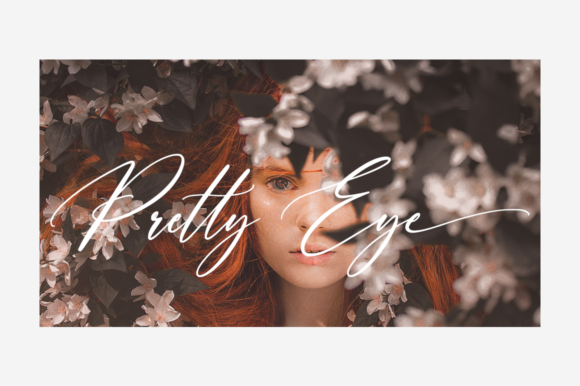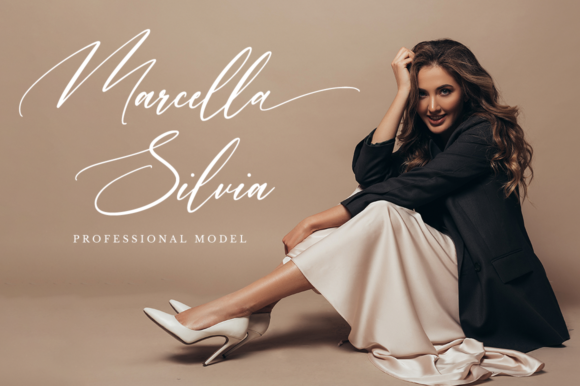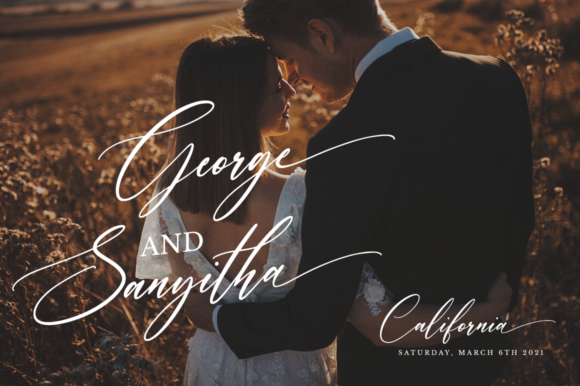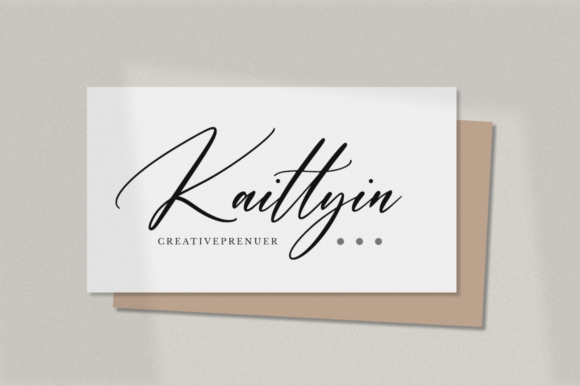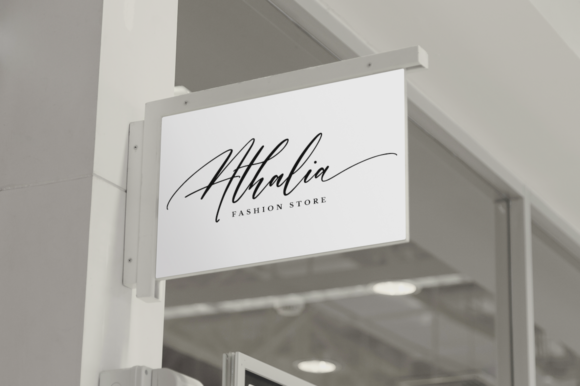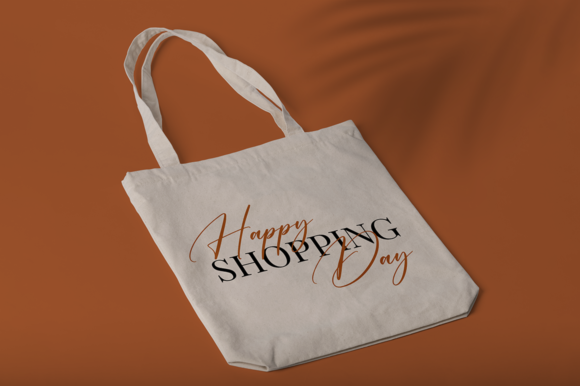
Athallia Font: Elevate Your Designs with a Touch of Luxury
In the world of design, typography plays a crucial role in conveying the tone and aesthetic of a project. For those seeking a font that exudes elegance and sophistication, Athallia Font is an exceptional choice. This beautiful light handwritten font boasts a unique feel and stunning impact, making it perfect for designers and crafters looking to add a luxury spark to their creations.
The Unique Charm of Athallia Font
Athallia Font is a meticulously crafted typeface designed to bring a refreshing and beautiful look to any design project. Its light and airy texture, combined with elegant handwritten strokes, creates a visually appealing effect that captivates audiences. The font’s unique feel is characterized by its subtle variations in line width and delicate connections between letters, giving it a personal and human touch.
Perfect for Luxury Designs
Athallia Font is particularly suited for designs that require a touch of luxury and sophistication. Whether you’re working on branding, packaging, wedding invitations, or any other high-end project, this font is sure to impress. Its elegant appearance and refined texture make it an excellent choice for designers seeking to create a lasting impression.
Key Features of Athallia Font
• Light and Airy Texture: Athallia Font features a delicate texture that adds a touch of elegance to any design.
• Unique Handwritten Strokes: The font’s handwritten strokes bring a personal and human touch to your designs.
• Easy to Read: Despite its elegant appearance, Athallia Font remains highly legible, making it suitable for body text and headings.
• Multilingual Support: The font supports multiple languages, allowing you to use it for a wide range of projects.
Tips for Using Athallia Font
To get the most out of Athallia Font, consider the following tips:
• Pair with Neutral Backgrounds: Allow Athallia Font to shine by pairing it with neutral backgrounds that don’t compete for attention.
• Experiment with Colors: Take advantage of the font’s versatility by experimenting with different colors and textures.
• Use for Headings and Titles: Athallia Font is perfect for headings and titles, where its elegant appearance can make a significant impact.
Who Can Benefit from Athallia Font?
Athallia Font is an excellent choice for a wide range of designers and crafters, including:
• Graphic Designers: Those working on branding, packaging, and advertising projects will appreciate Athallia Font’s luxurious feel.
• Wedding Planners and Stylists: Create stunning wedding invitations, stationery, and decor with Athallia Font’s elegant appearance.
• Stationery and Journal Designers: Add a touch of sophistication to notebooks, journals, and stationery with Athallia Font.
Athallia Font is a beautiful and refreshing typeface that can elevate any design project with its unique feel and stunning impact. Its light and airy texture, combined with elegant handwritten strokes, make it perfect for designers and crafters seeking to add a luxury spark to their creations. With its versatility, multilingual support, and ease of use, Athallia Font is an excellent choice for anyone looking to create stunning designs that leave a lasting impression.